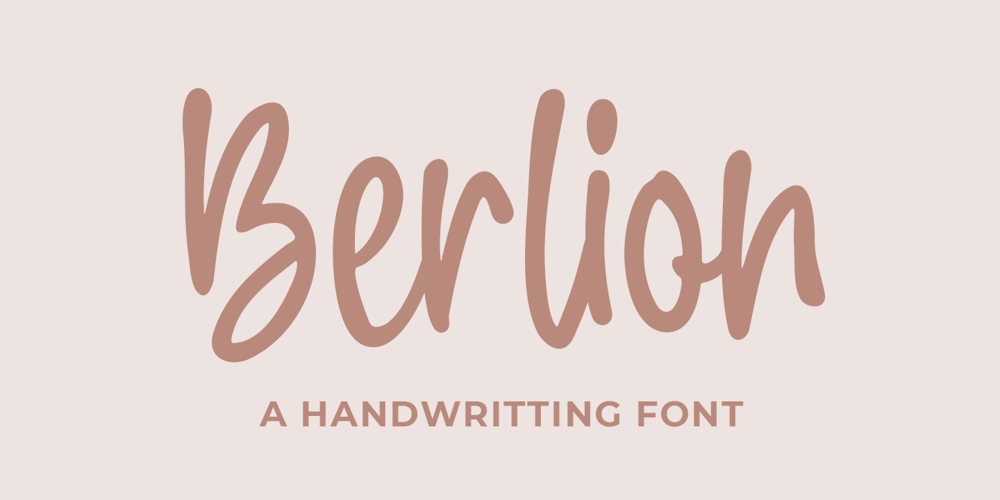
Berlion Font Family was designed by Bangkit Tri Setiadi and published by Blankids. Berlion contains 1 styles and family package options. Introducing of our new product the name is Berlion a Handwritting Script Font, Berlion inspired by Bouncy Calligraphy style with a fun theme very good for Logotype, kids poster, flyer, childrenbook, cartoon, comic etcFEATURES : Uppercase Lowercase Number Punctuation Multilingual PUA Encode Opentype